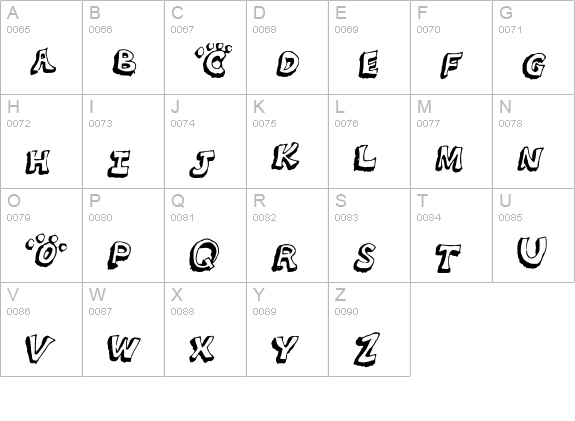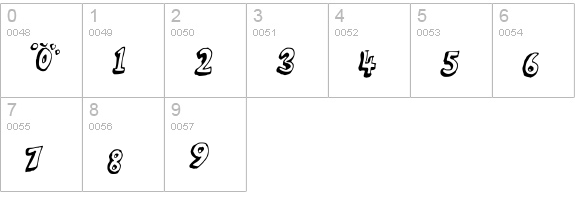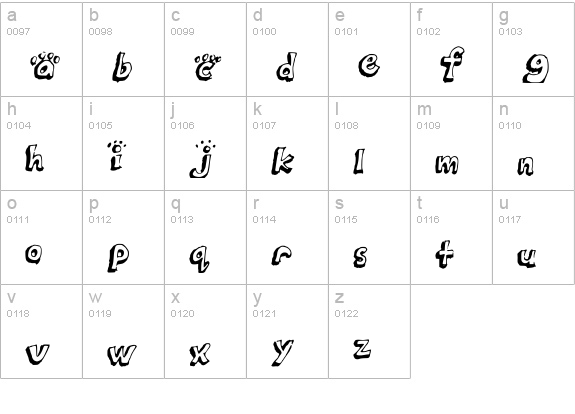
Puppy_paws Font Details
Introducing Puppy_paws font, a delightful and playful typeface that will bring a touch of cute charm to any design project. Designed with love and attention to detail, this font features adorable paw prints as decorative elements, adding a whimsical flair to your typography. With its friendly and approachable appearance, Puppy_paws font is perfect for a variety of applications, from children's books and posters to greeting cards and invitations. Its soft curves and smooth lines create a sense of warmth and innocence, evoking the joyful spirit of a playful puppy. One of the best features of Puppy_paws font is that it is completely free! Yes, you read that right. This charming typeface is freely available to download at FontsMarket.com, making it accessible to designers and enthusiasts alike. Whether you're a professional designer looking for a unique font to add to your collection or a hobbyist wanting to experiment with typography, Puppy_paws font is a fantastic choice. Not only does Puppy_paws font offer a delightful aesthetic, but it is also highly versatile. With uppercase and lowercase letters, numbers, punctuation marks, and a range of special characters, this font provides endless possibilities for creative expression. Its legibility ensures that your message will be conveyed clearly, while its charming design adds a touch of personality to your text. So why wait? Download Puppy_paws font today and let your designs come to life with its irresistible cuteness. Whether you're creating a logo, designing a website, or crafting a memorable branding project, this font will surely captivate hearts and bring a smile to everyone's face. Embrace the playful spirit of Puppy_paws font and watch your designs shine with its charm and character.